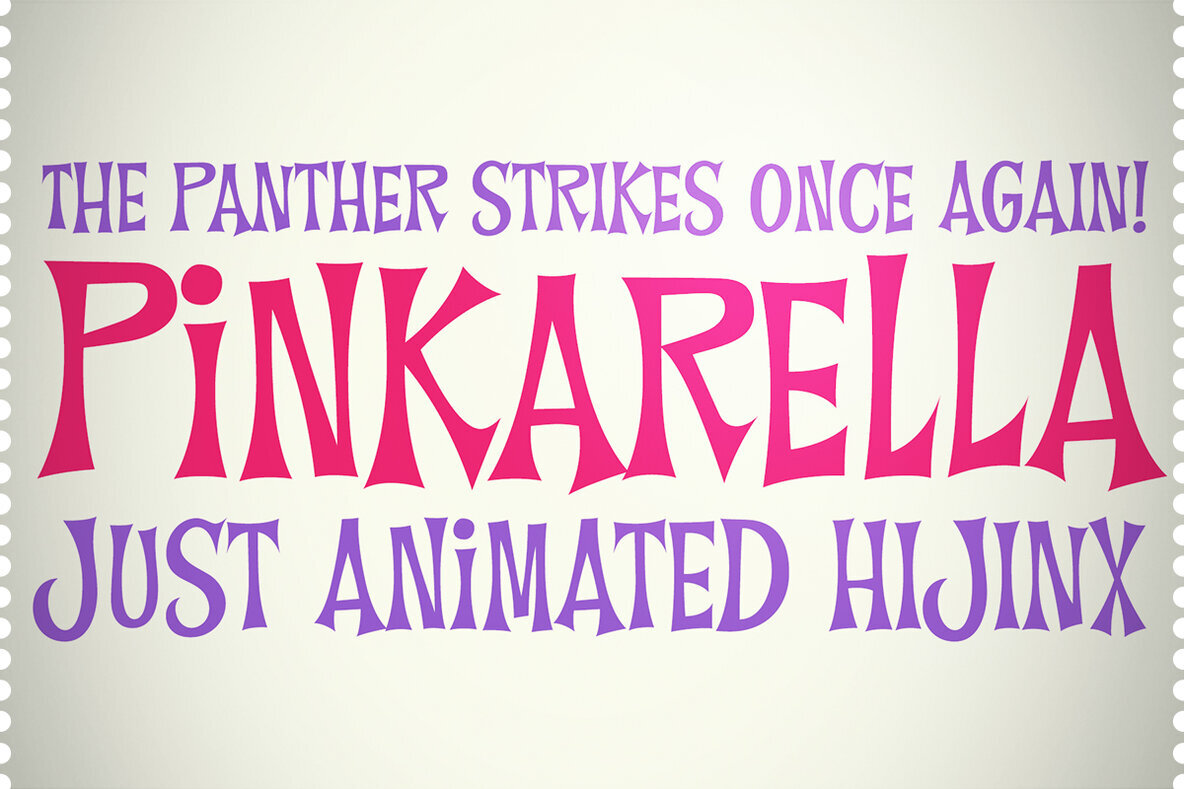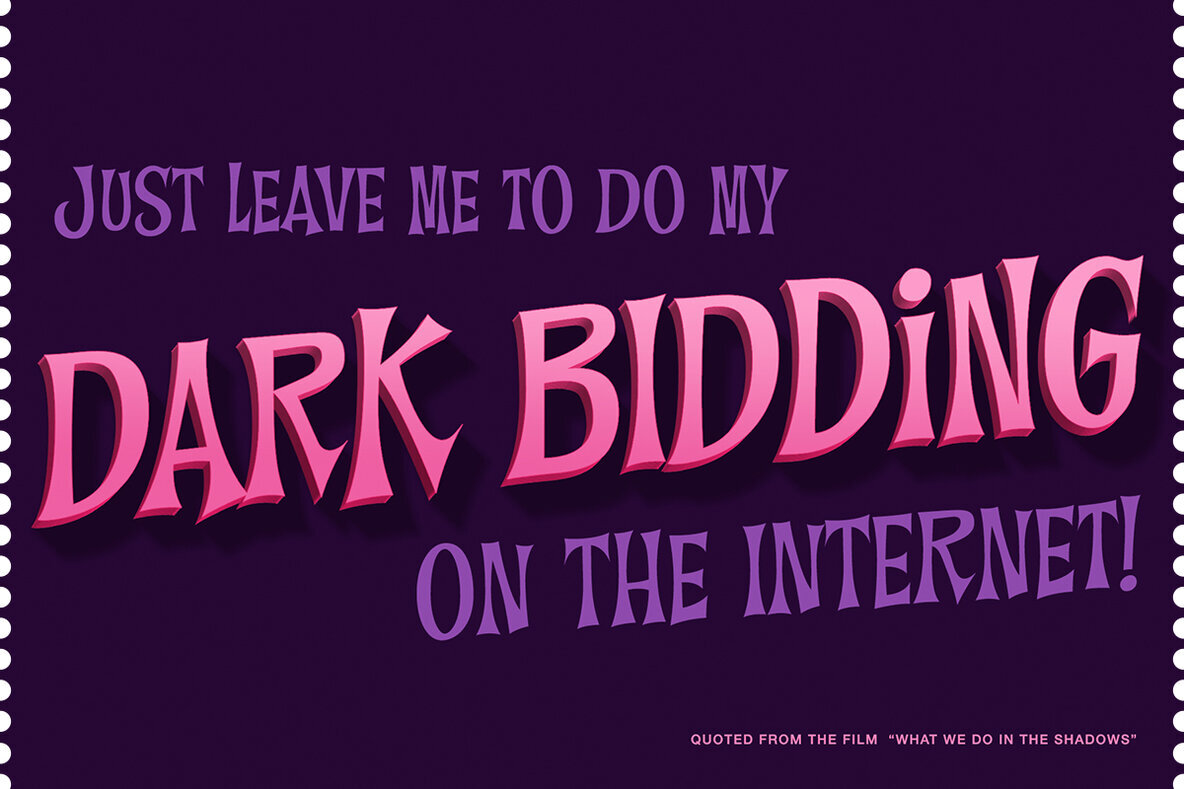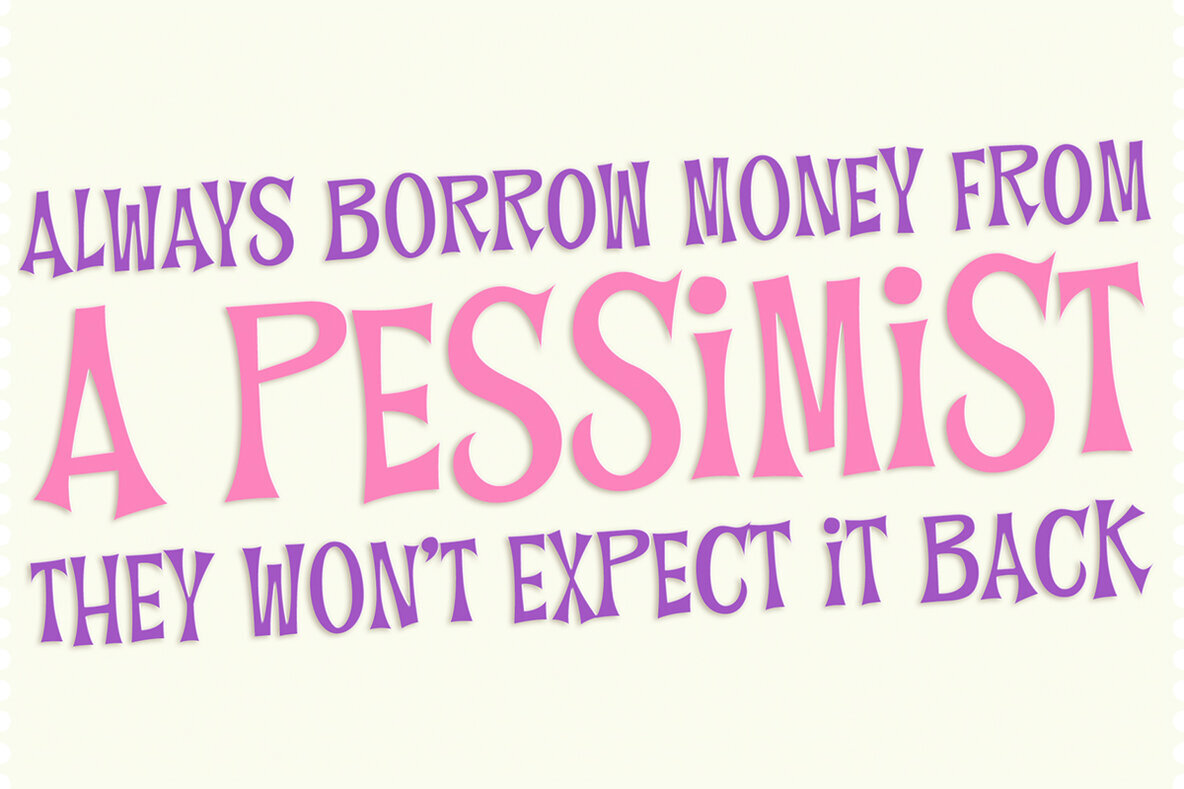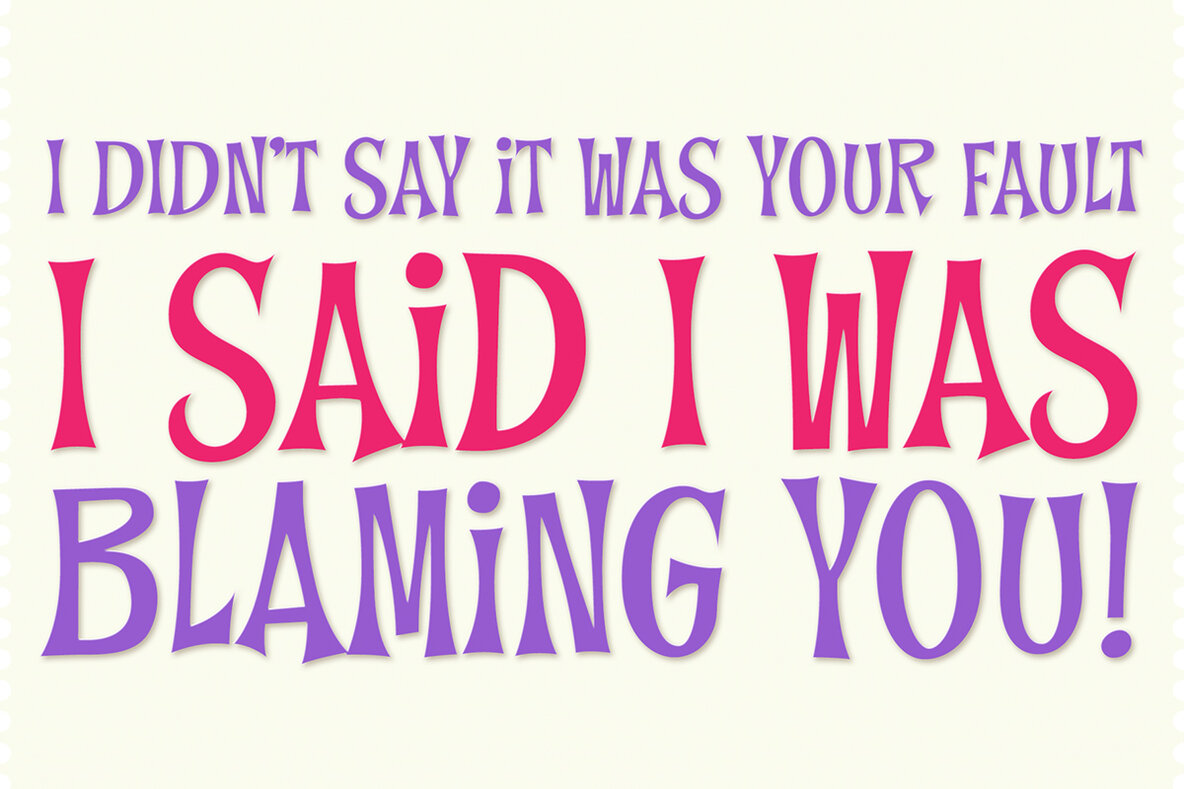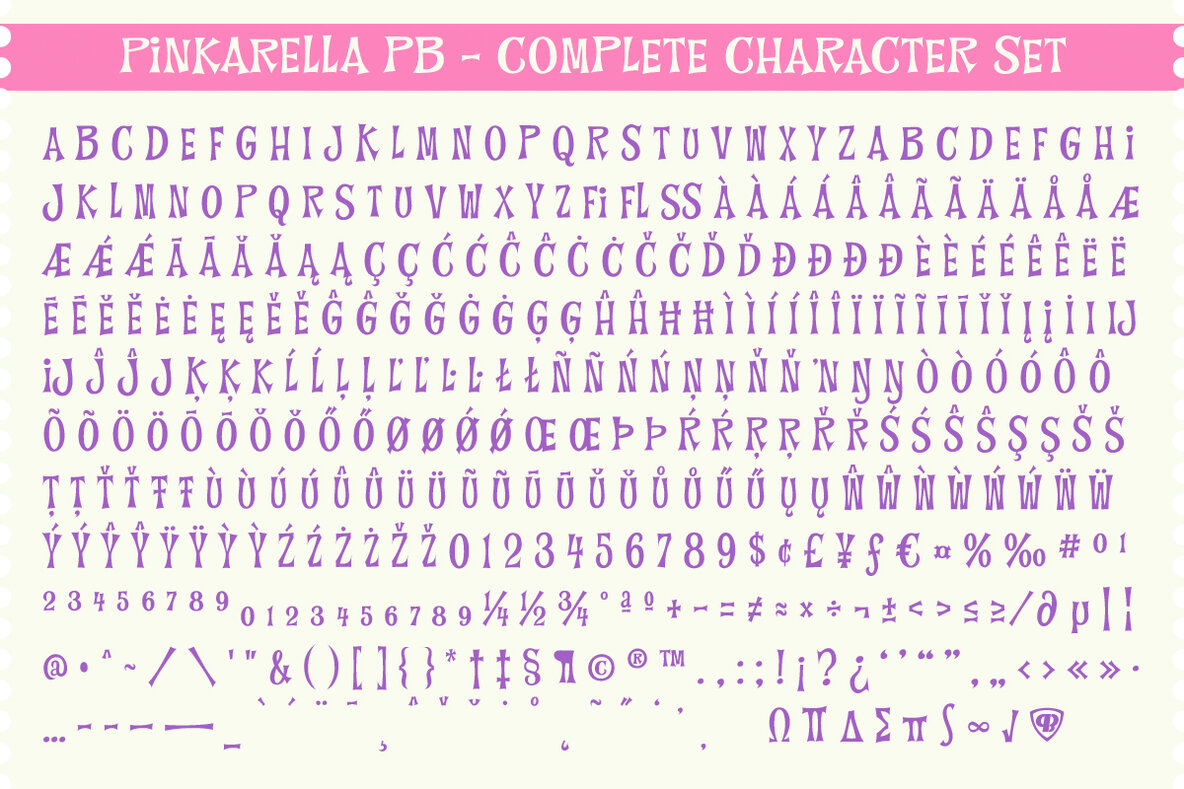
Pinkarella PB Font
Pinkarella
Dive into the whimsical world of Pinkarella PB, a delightful typeface inspired by the lively title lettering from the 56th Pink Panther cartoon episode, 'Pink-A-Rella.' This font captures the playful essence of its original, featuring a charismatic flare serif style that exudes animated joy and creativity.Pinkarella PB Typeface